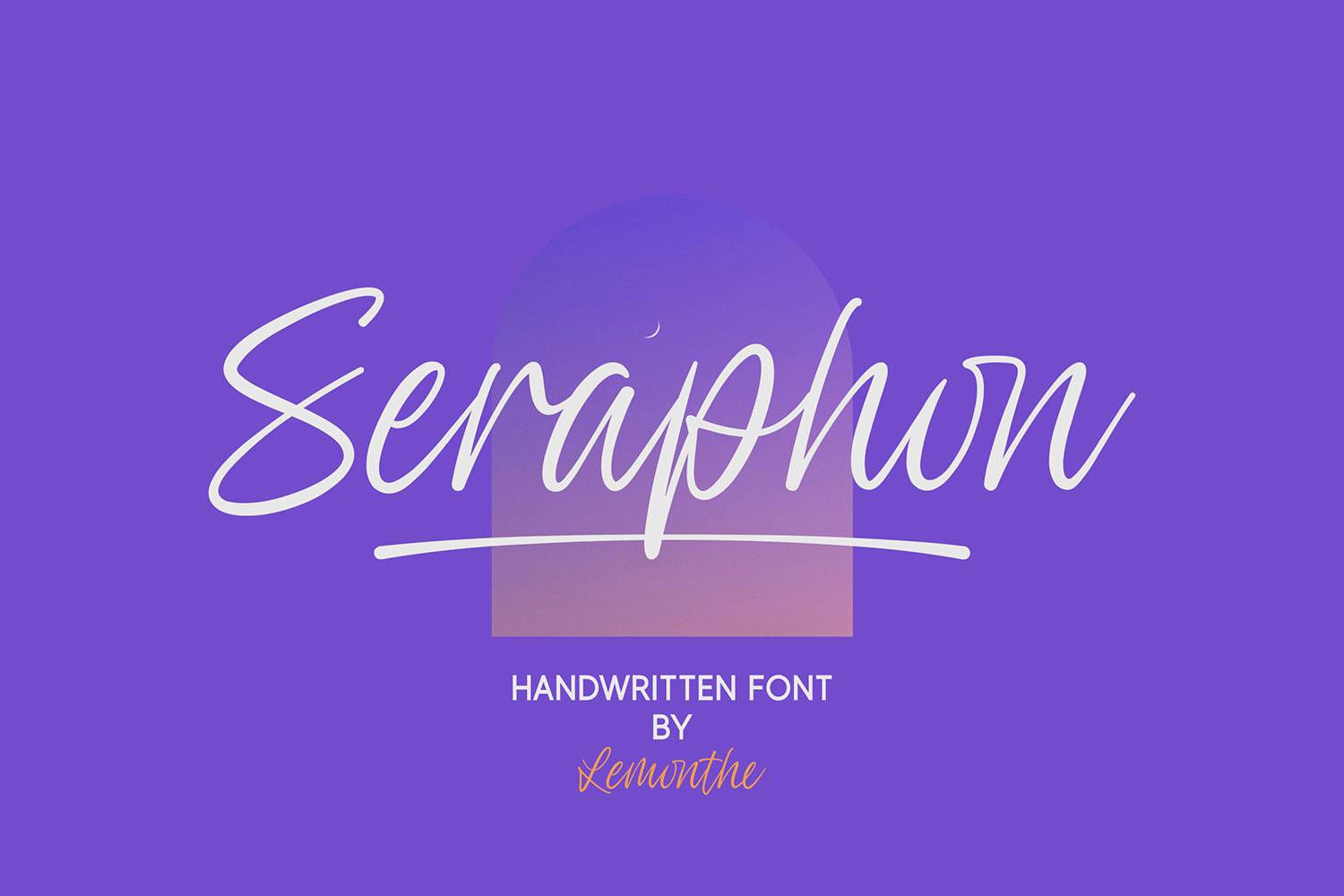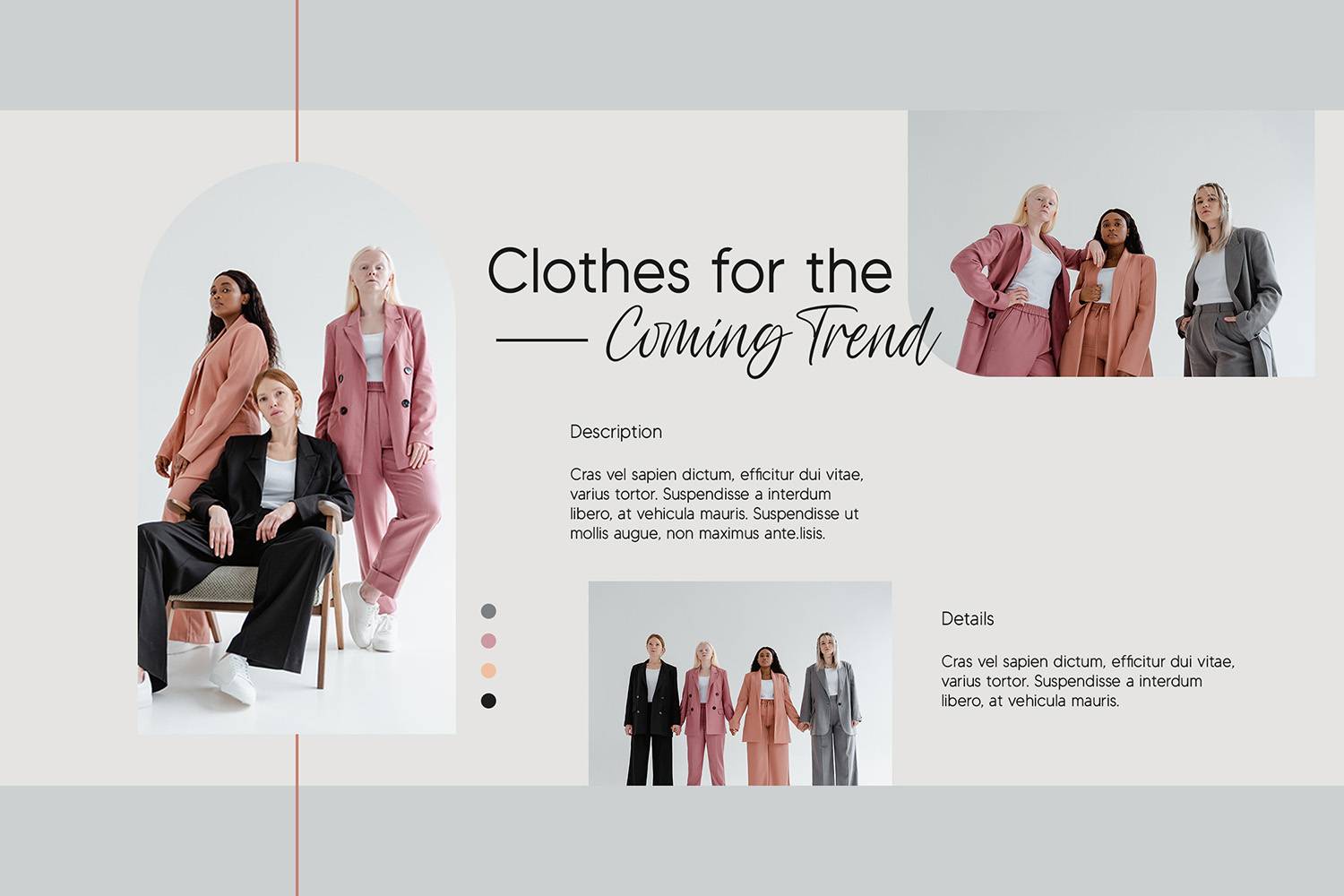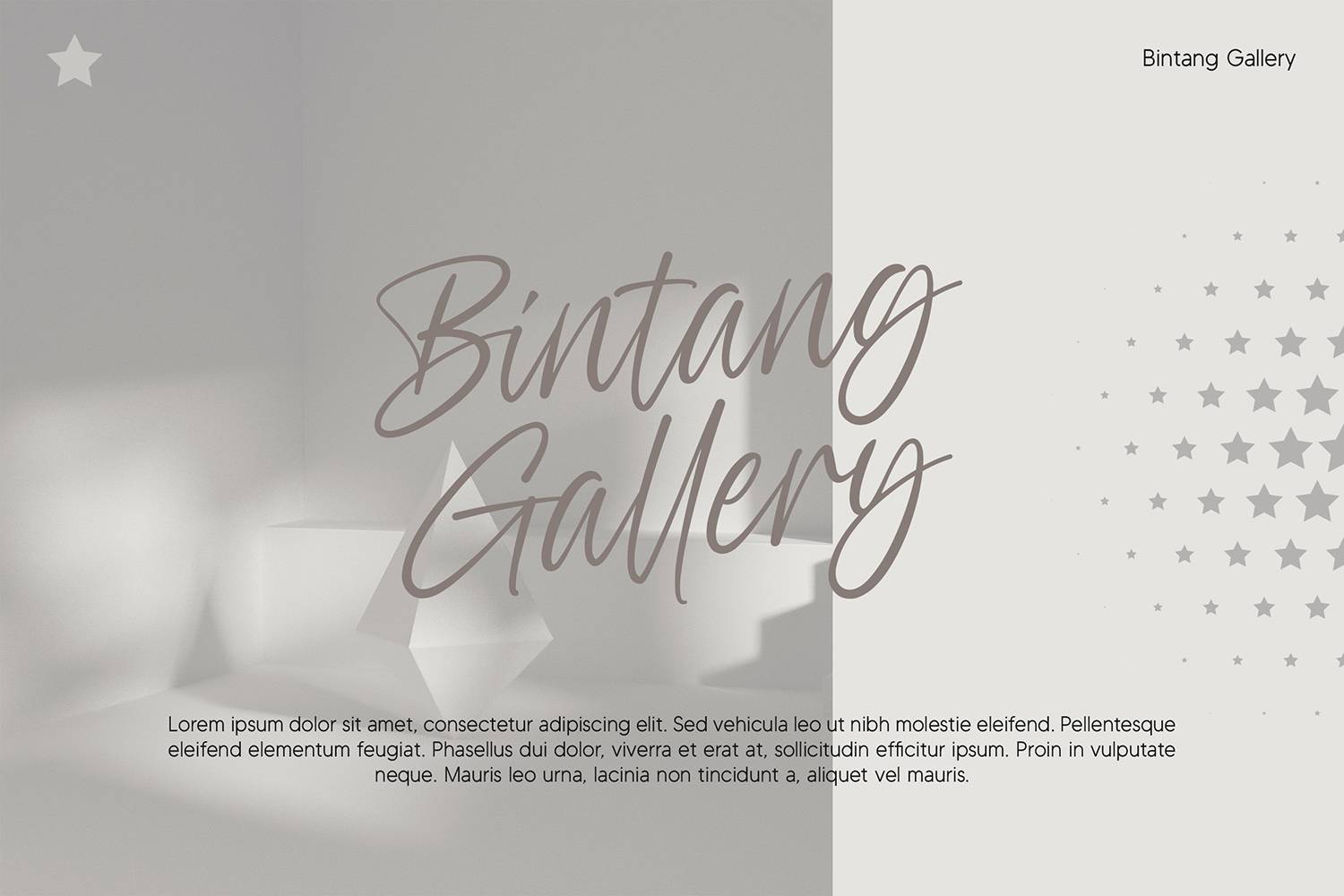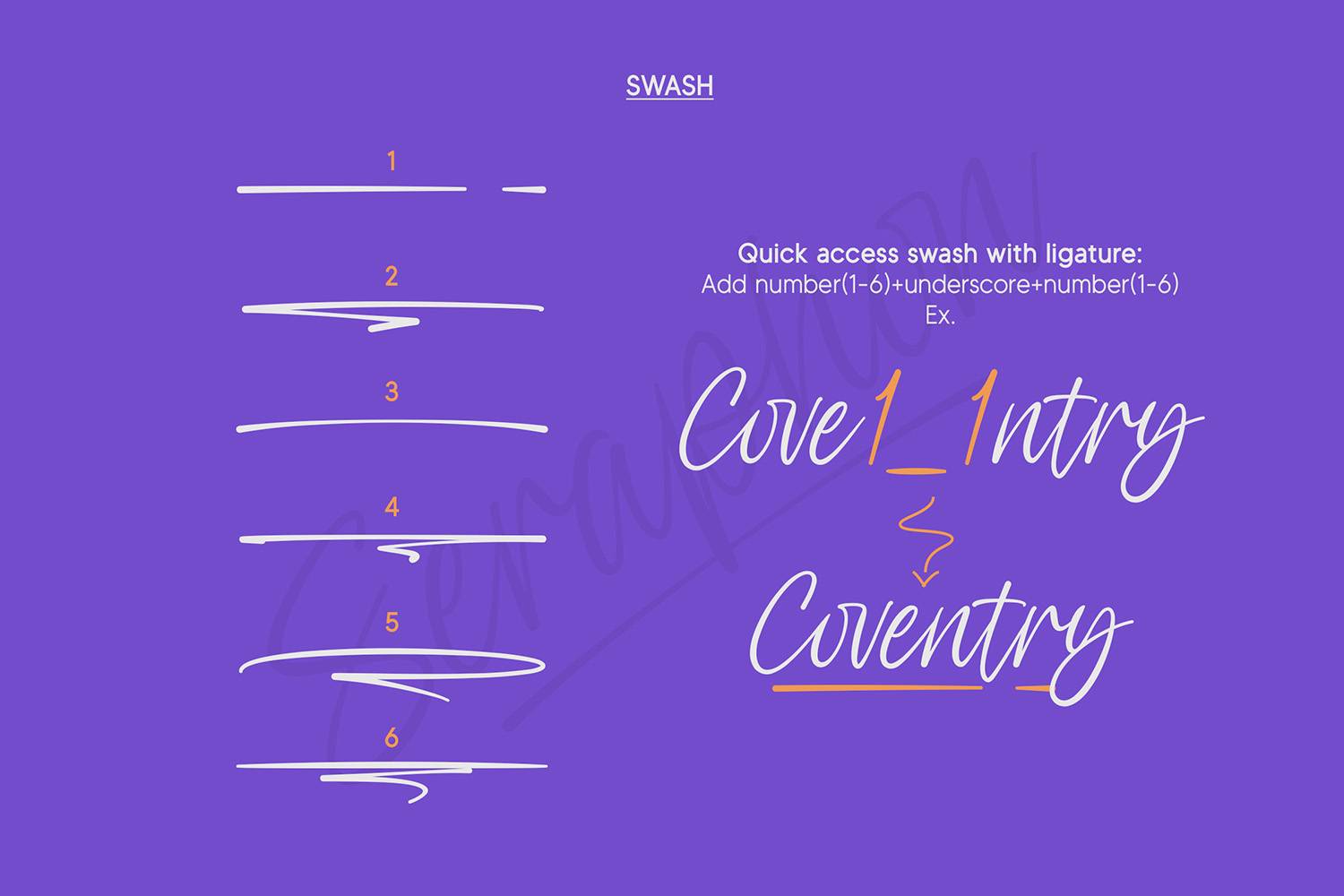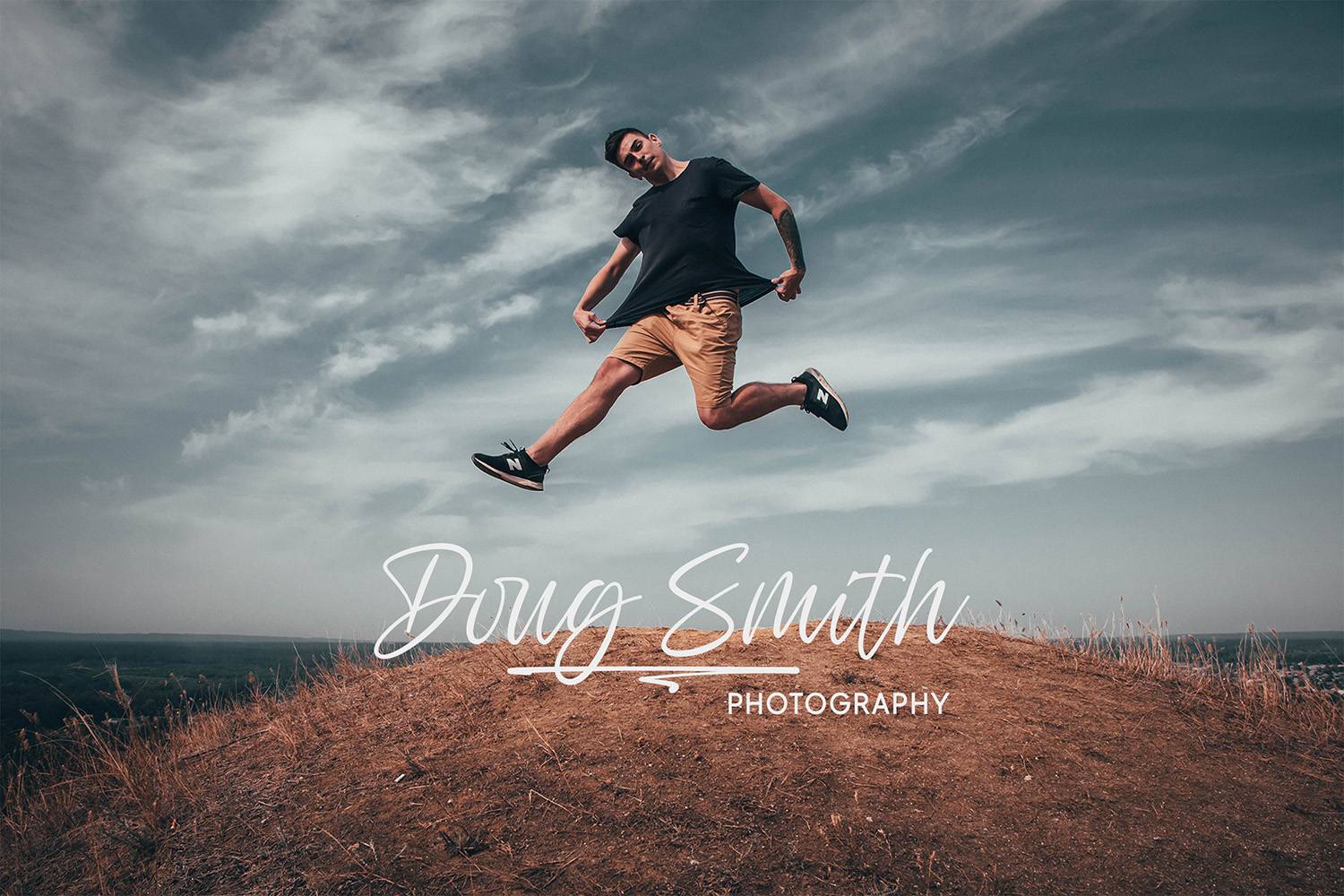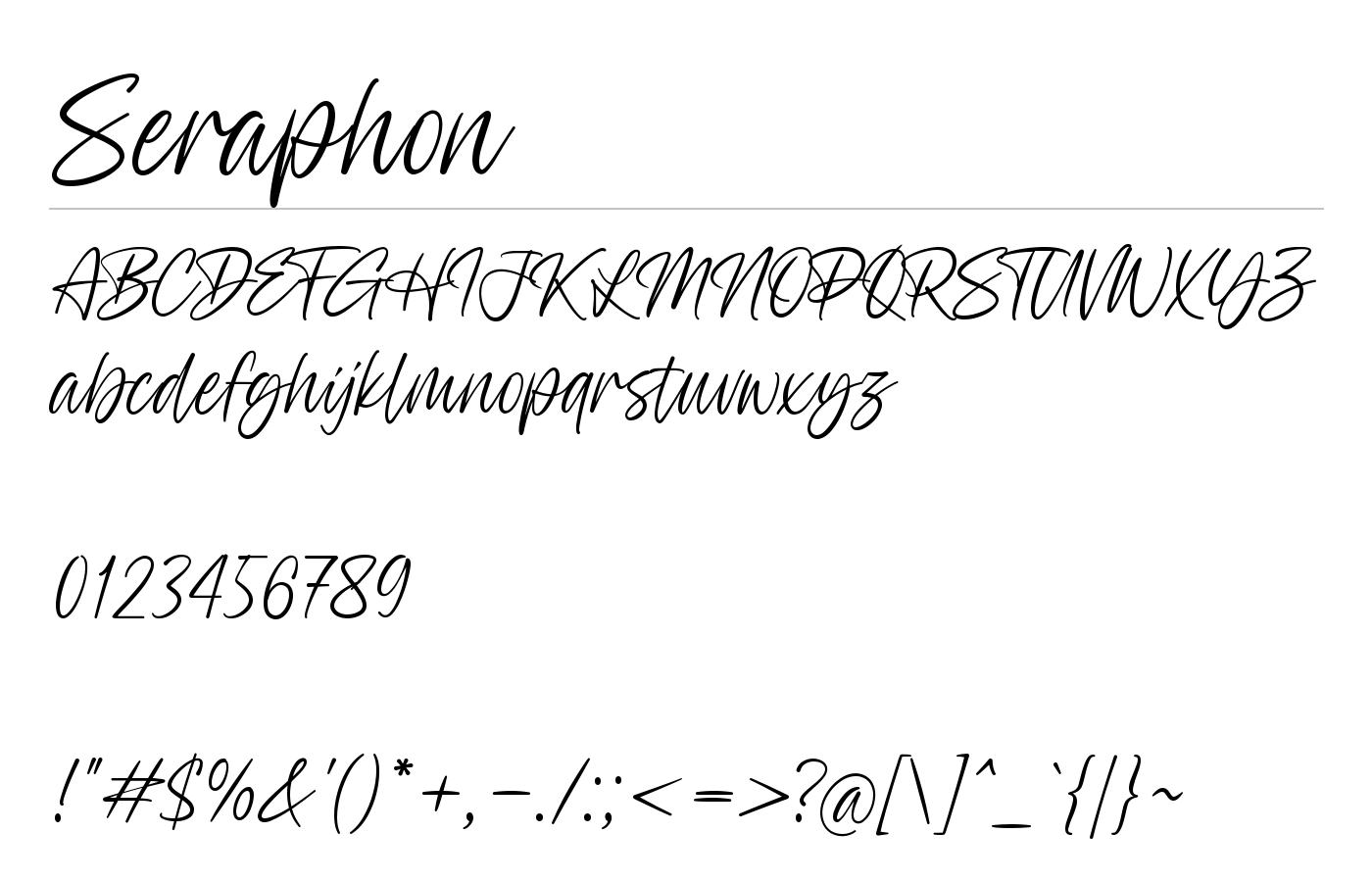
Seraphon is a delicate, modern script font characterized by its flowing, handwritten style with smooth, connected strokes and a light weight that conveys elegance and sophistication. Its narrow, slightly tall letterforms and consistent stroke width make it perfect for stylish branding, invitations, and fashion-related design where a personal, graceful touch is desired. This font shines in contexts that need a refined yet approachable look, such as logos, greeting cards, and editorial headlines.
Seraphon Font
About Seraphon Font
| Font family | Seraphon Font |
| Release date | 2022-12-13 |
| Designer | Dwi Ahidian |